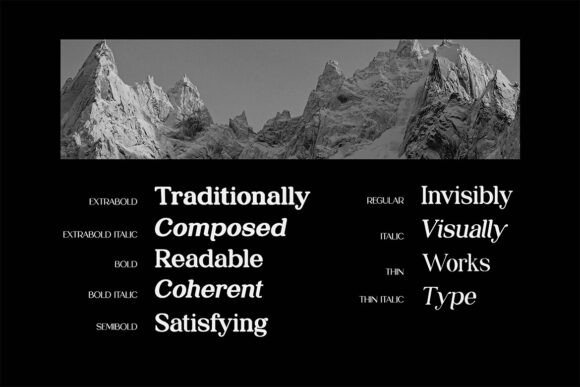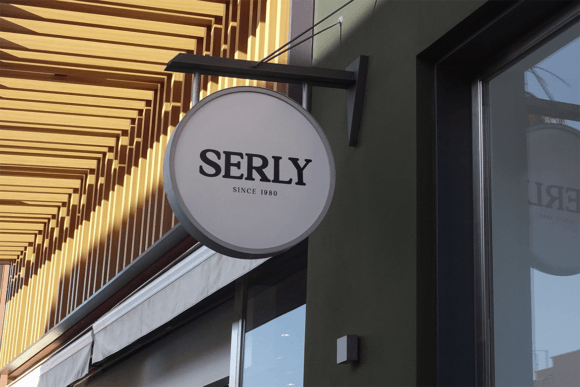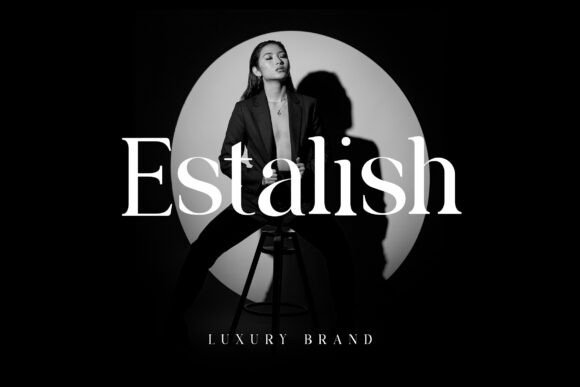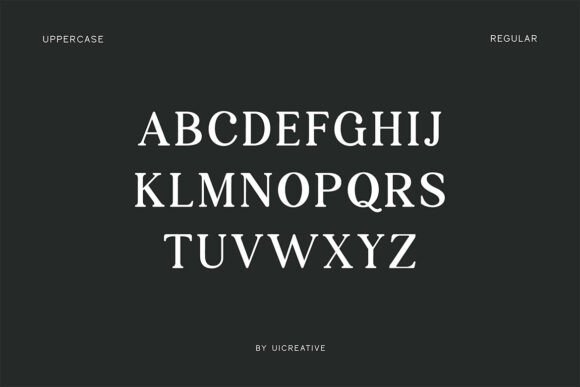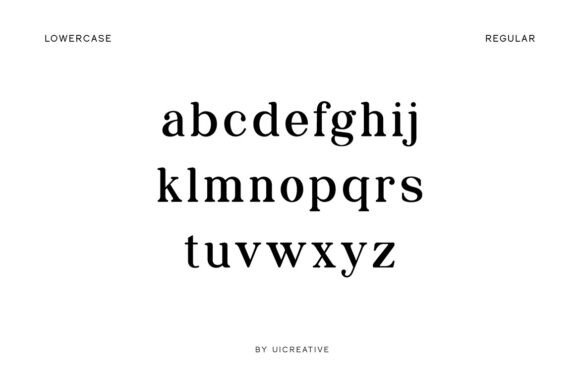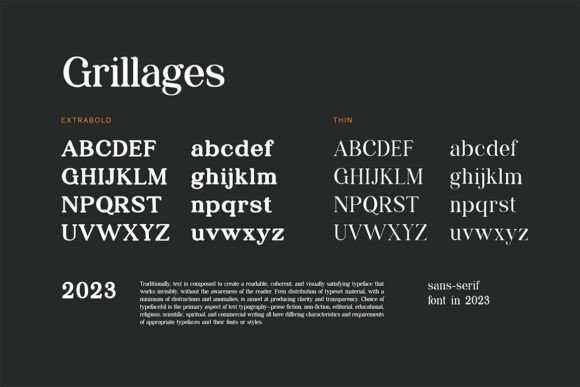
Introducing Grillages Font: Elevate Your Designs with Modern Elegance
In the world of typography, a font can make or break the aesthetic of a design project. For designers and crafters seeking a modern, classy, and elegant look, Grillages Font is an exceptional choice. This modern serif font is designed to bring a touch of sophistication and style to a wide range of projects, from logos and stationery to magazine covers and website headers.
The Essence of Grillages Modern Serif Font
Grillages Font is a versatile typeface that exudes a sense of luxury and refinement. Its modern serif design combines classic elements with a contemporary twist, making it perfect for projects that demand a high level of elegance and poise. Whether you’re working on a branding campaign, creating a logo, or designing a wedding invitation, Grillages Font is sure to impress.
Key Features of Grillages Font
- Modern Serif Design: Grillages Font boasts a sleek and modern serif design that adds a touch of sophistication to any project.
- Elegant and Classy: The font’s elegant and classy feel makes it perfect for high-end branding, luxury packaging, and refined editorial designs.
- Versatile: Grillages Font is suitable for a wide range of projects, including logos, stationery, magazine covers, website headers, and more.
- Masculine and Feminine Qualities: This font displays both masculine and feminine qualities, making it an excellent choice for fashion-related branding and editorial designs.
Grillages Font is an excellent addition to any designer’s or crafter’s toolkit. Its versatility and elegance make it an ideal choice for:
- Branding: Create a lasting impression with a sophisticated logo or brand identity.
- Stationery: Elevate your stationery designs with a touch of modern elegance.
- Wedding Designs: Make your wedding invitations, programs, and decor truly unforgettable.
- Magazine and Book Covers: Stand out with a bold and eye-catching cover design.
- Website Headers: Create a stunning first impression with a modern and elegant website header.
Why Choose Grillages Font?
With so many fonts available, why choose Grillages Font? Here are just a few reasons:
- Unique and Memorable: Grillages Font is a distinctive typeface that will set your designs apart from the rest.
- High-Quality: This font is crafted with attention to detail, ensuring a high level of quality and consistency.
Grillages Modern Serif Font is an exceptional choice for designers and crafters seeking a modern, elegant, and classy typeface. Its versatility, sophistication, and style make it perfect for a wide range of projects. Whether you’re working on a branding campaign, creating a logo, or designing a wedding invitation, Grillages Font is sure to elevate your designs to the next level.